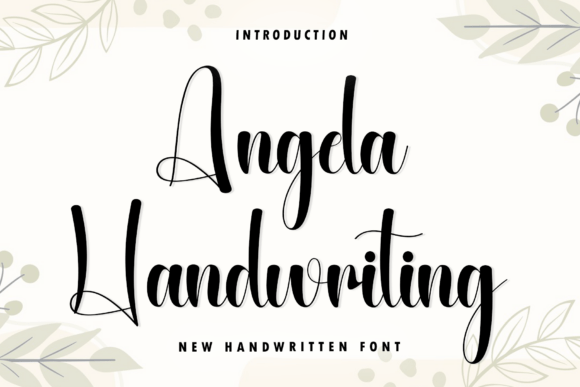
The Elegance of Angela Handwriting Font: A Designer’s Delight
I still remember the project that led me to discover the beautiful Angela Handwriting Font. I was working on a luxury wedding stationery set for a client who wanted a sophisticated, high-end look. As I scrolled through font after font, nothing seemed quite right – until I stumbled upon Angela. Its elegant, fluid strokes and sweeping loops immediately captured my attention, and I knew I had found the perfect fit.
An Honest Review of Angela Handwriting Font
- ✨ Elegant and fluid handwritten script with high-contrast strokes
- ✅ Expansive horizontal presence for a sophisticated look
- ✅ Delicate connections between characters for a natural flow
- ✅ Perfect for luxury wedding stationery, intimate event branding, and high-end editorial signatures
While Angela Handwriting Font is a stunning addition to any design project, there are a few things to keep in mind:
- ⚠️ The font’s intricate details and high-contrast strokes may not be suitable for very small font sizes or low-resolution images.
- 🤔 Some users may find the font’s expansive horizontal presence challenging to work with in certain design contexts.
A Practical Guide to Using Angela Handwriting Font
- Explore OpenType features, such as glyphs and stylistic alternates, to add variety and personality to your text.
The Story Behind Angela Handwriting Font
While the true story behind Angela Handwriting Font may be unknown, it’s easy to imagine that its designer was inspired by the world of luxury and sophistication. Perhaps they sought to create a font that would evoke the feeling of fine writing and high-end stationery. Whatever the inspiration, the result is a font that exudes elegance and refinement.
Q: What makes Angela Handwriting Font suitable for luxury wedding stationery?
A: Angela’s elegant strokes, high-contrast details, and sophisticated aesthetic make it a perfect fit for luxury wedding stationery and other high-end design projects.
Q: Is Angela Handwriting Font available in different weights or styles?
A: While Angela Handwriting Font may not have multiple weights or styles, its elegant strokes and high-contrast details provide a range of design possibilities.
Q: Can I use Angela Handwriting Font for digital and print projects?
A: Absolutely! Angela Handwriting Font is versatile and can be used for both digital and print projects, from social media graphics to luxury wedding stationery.